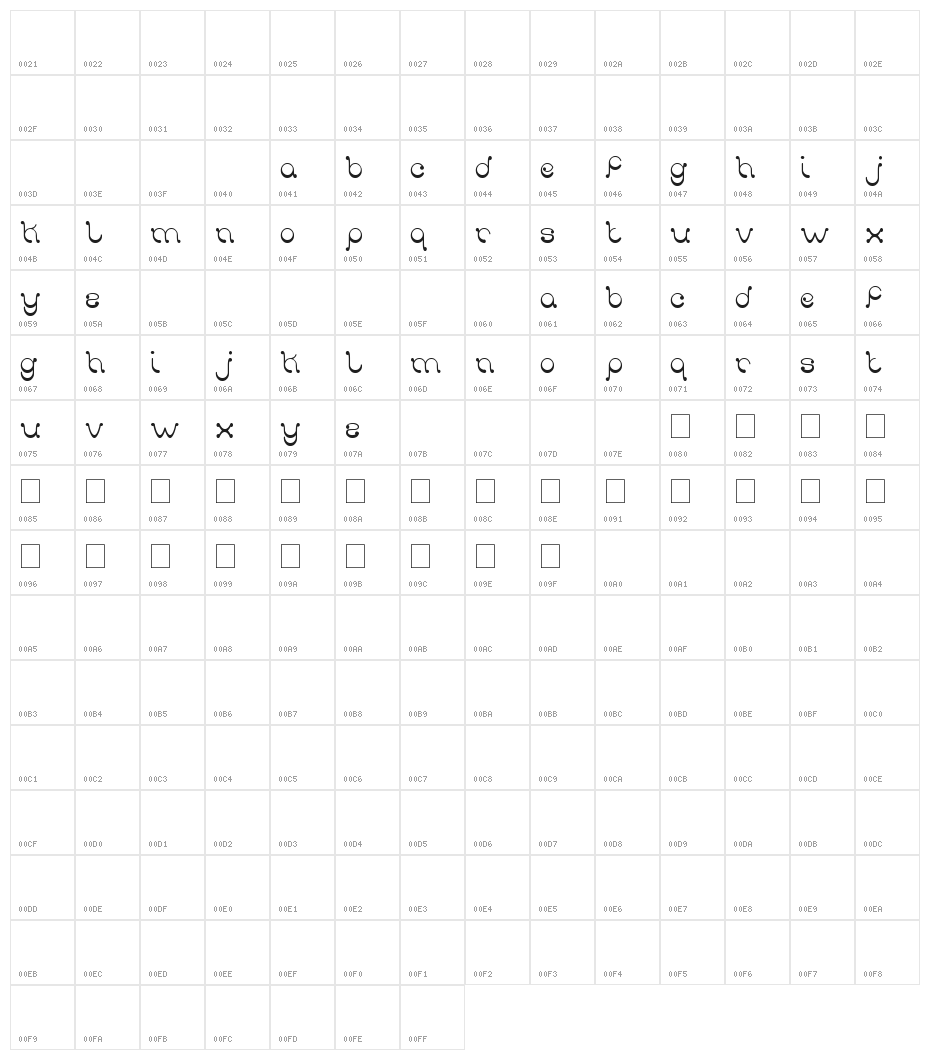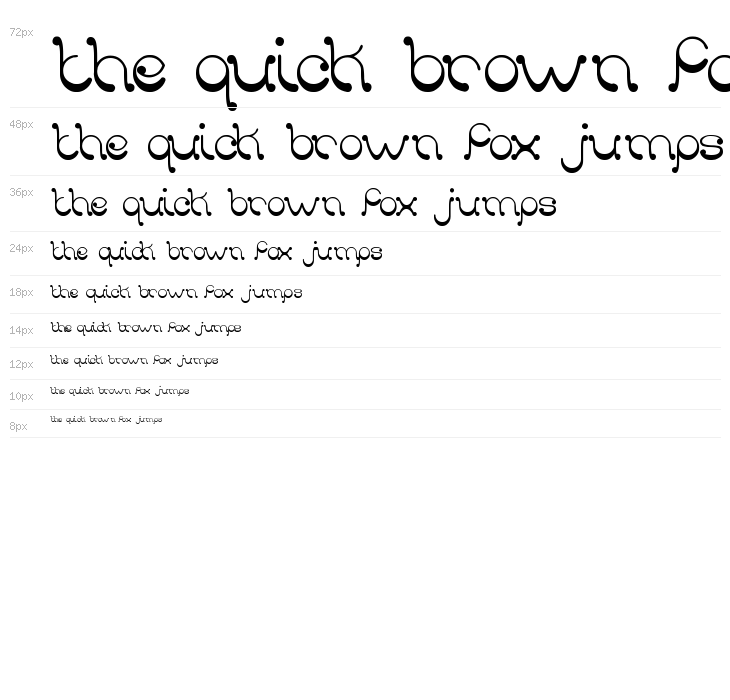
smile Font
smile Description
This font features a playful and whimsical design, characterized by its rounded, bubbly letterforms. Each character has a unique, almost cartoonish appearance, with exaggerated curves and a consistent stroke width that gives it a bold presence. The font maintains a sense of fun and creativity, making it ideal for projects that aim to convey a lighthearted and friendly tone. Its distinct style is both eye-catching and memorable, ensuring that any text set in this font will stand out. The consistent spacing between characters provides a clean and organized look, while the rounded edges soften the overall appearance, adding to its approachable feel.